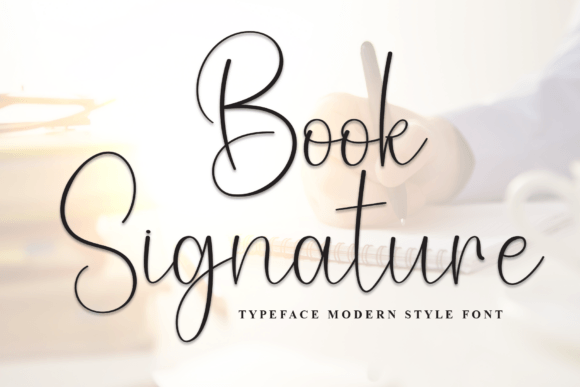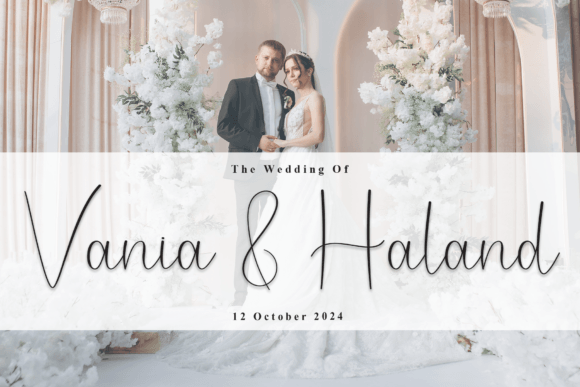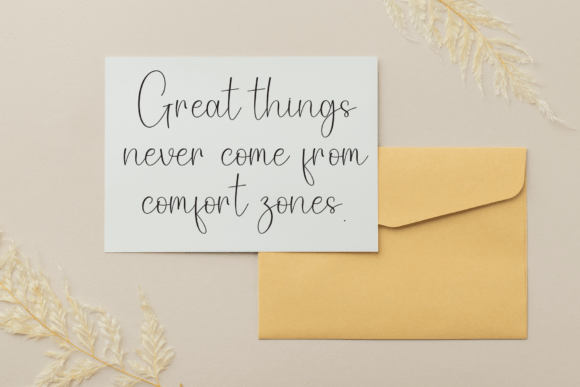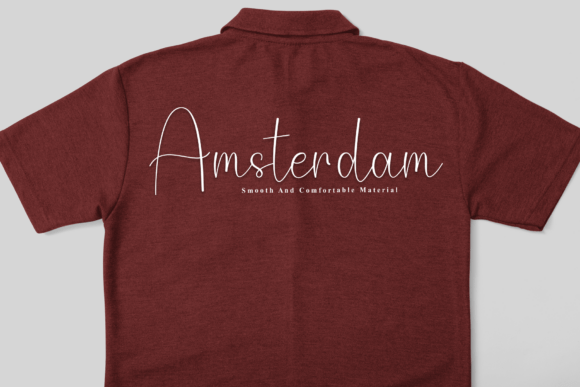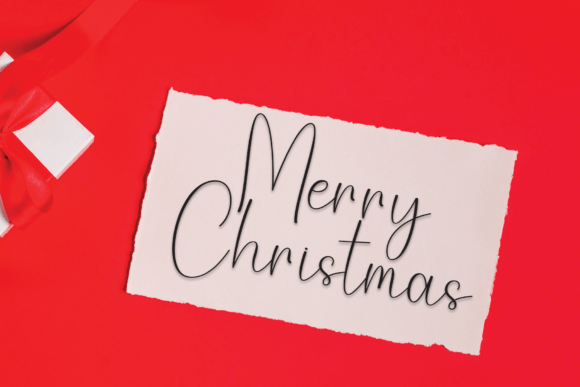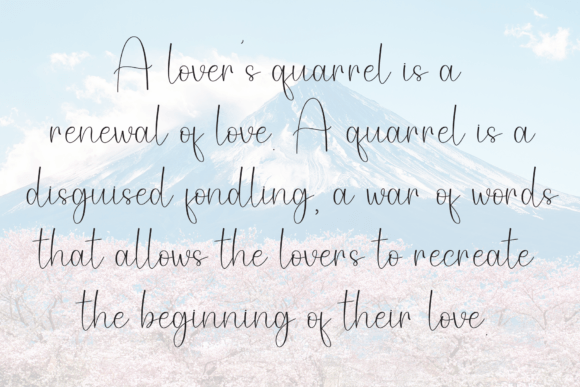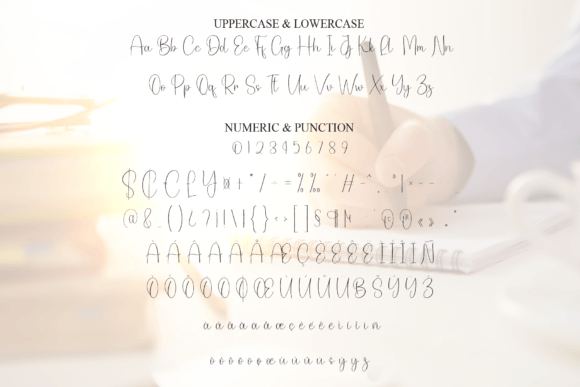
Signing Off with Style: The Book Signature Font
As designers, we’ve all been there – stuck on a project, struggling to find the perfect font to bring our vision to life. But what if that perfect font was hiding in plain sight, waiting for us to discover its unique charm? For me, that moment came when I stumbled upon the Book Signature Font. Its smooth, flowing letters and warm, friendly feel immediately captured my attention, and I knew I had to learn more.
The Book Signature Font is a beautiful, handwritten font designed to evoke the feeling of a personal signature written with a pen. It’s perfect for personal or creative projects where you want to add a touch of elegance and warmth. And for designers, it’s a valuable addition to any toolkit, offering a unique and versatile option for a wide range of applications.
Key Features of Book Signature Font
- Unique Characteristics: The Book Signature Font features a beautiful, cursive script with a classic, elegant feel, making it perfect for signing books, documents, and other important papers.
- High-Quality Design: The font is designed to be highly legible, even at small sizes, and features a range of subtle flourishes and decorations to add visual interest.
- Professional and Elegant: The Book Signature Font is designed to convey a sense of professionalism and elegance, making it perfect for use in business, academic, and personal settings.
Designer Review: Book Signature Font
Overall, I was really excited to dive into Book Signature Font, but my experience was a mixed bag.
- The font has a unique, elegant feel to it, making it perfect for book covers, literary-inspired designs, or even wedding invitations.
- The font’s curves and lines are well-balanced, giving it a sense of sophistication and refinement.
- The font family includes a variety of weights and styles, allowing for a range of design possibilities.
- The font’s design can feel a bit too ornate for certain types of projects, such as business cards or news headlines.
- The font’s spacing and kerning can be a bit off at times, which can affect readability.
- The font family is not as extensive as some other popular fonts, which may limit its versatility.
Overall, I would recommend Book Signature Font for designers looking to add a touch of elegance and sophistication to their projects. However, it may not be the best choice for every project, and some designers may find the limitations to be a hindrance.
Use the Book Signature Font to create a professional and elegant look for your book titles, author names, or other text elements.
The Book Signature Font is ideal for:
Book titles and author names
Headings and subheadings
Quotes and excerpts
Author bios and profiles
Alternatives to Book Signature Font
Playfair Display is a high-end serif font suitable for titles, headings, and special text. It features intricate details and elegant flair, making it perfect for luxury branding, invitations, and special occasions.
Compared to Book Signature Font, Playfair Display has a more ornate and sophisticated feel. While Book Signature Font is more versatile and can be used for body text, Playfair Display is best reserved for statement pieces.
Merriweather is a classic serif font that exudes a sense of tradition and elegance. It’s suitable for body text, titles, and headings, and is often used in publishing, academia, and high-end branding.
Compared to Book Signature Font, Merriweather has a more subdued and classic feel. While Book Signature Font has a more modern and sleek look, Merriweather is more timeless and versatile.